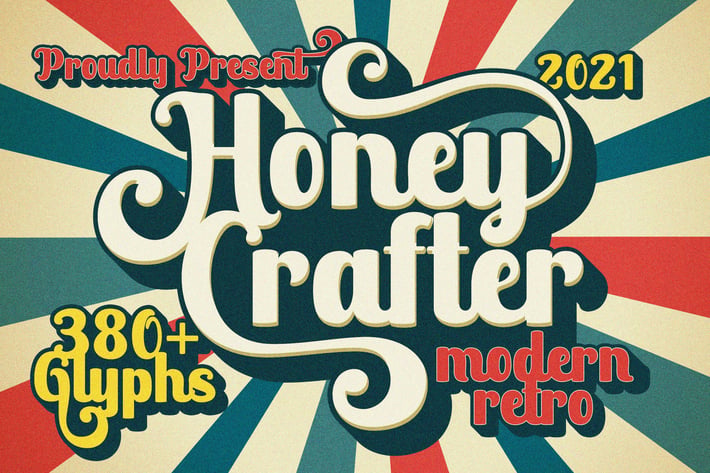
Honey Crafter Vintage Business Font
Honey Crafter is modern retro font. Made carefully with digital sketch and vectorizing one by one to get best shapes. Honey crafter comes with a lot of alternate that let you make great design composition.
Stylistic Alternate, Stylistic set (01,02,03,04), Swash